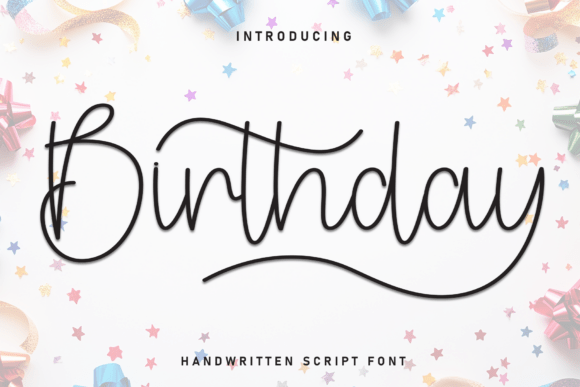
The Birth of Elegance: A Deep Dive into the Birthday Font
I’ll never forget the time I was working on a birthday invitation project for a client, and I just couldn’t seem to find the perfect font. The design needed to be elegant, yet playful; sophisticated, yet approachable. I scoured the internet, tried out countless fonts, but nothing seemed to fit the bill. That was until I stumbled upon the Birthday font. It was like a breath of fresh air – the flowing curves, the natural rhythm, and the charming touch it added to the design. In this article, I’ll be sharing my experience with the Birthday font, its features, and how to make the most of it in your designs.
As a designer, I’m always on the lookout for fonts that can elevate my projects. Here’s what I love about the Birthday font:
• ✨ Elegant and playful: The Birthday font strikes the perfect balance between sophistication and whimsy.
• ✅ Versatile: It can be used for a wide range of projects, from invitations and branding to social media graphics.
• 💫 Unique character: The font’s flowing curves and natural rhythm give it a distinct personality that sets it apart from other fonts.
Of course, no font is perfect, and here are a few quirks to keep in mind:
• ⚠️ Limited use in very formal designs: While the Birthday font is elegant, it may not be suitable for very formal or traditional designs.
• 🤔 May not work well in small sizes: As with many script fonts, the Birthday font may lose some of its charm when used in very small sizes.
The Designer Inspiration Behind the Birthday Font
The Birthday font was designed with the intention of capturing the essence of elegance and playfulness. The designer, inspired by the beauty of handwritten scripts, aimed to create a font that would add a personal touch to any project. While the real story behind the font’s creation may be unknown, it’s clear that the Birthday font has been crafted with love and attention to detail.
What makes the Birthday font unique? The Birthday font’s unique character comes from its flowing curves and natural rhythm, which give it a distinct personality.
Is the Birthday font suitable for body text? While the Birthday font is beautiful, it’s best suited for headlines and titles. For body text, a more traditional font may be more readable.